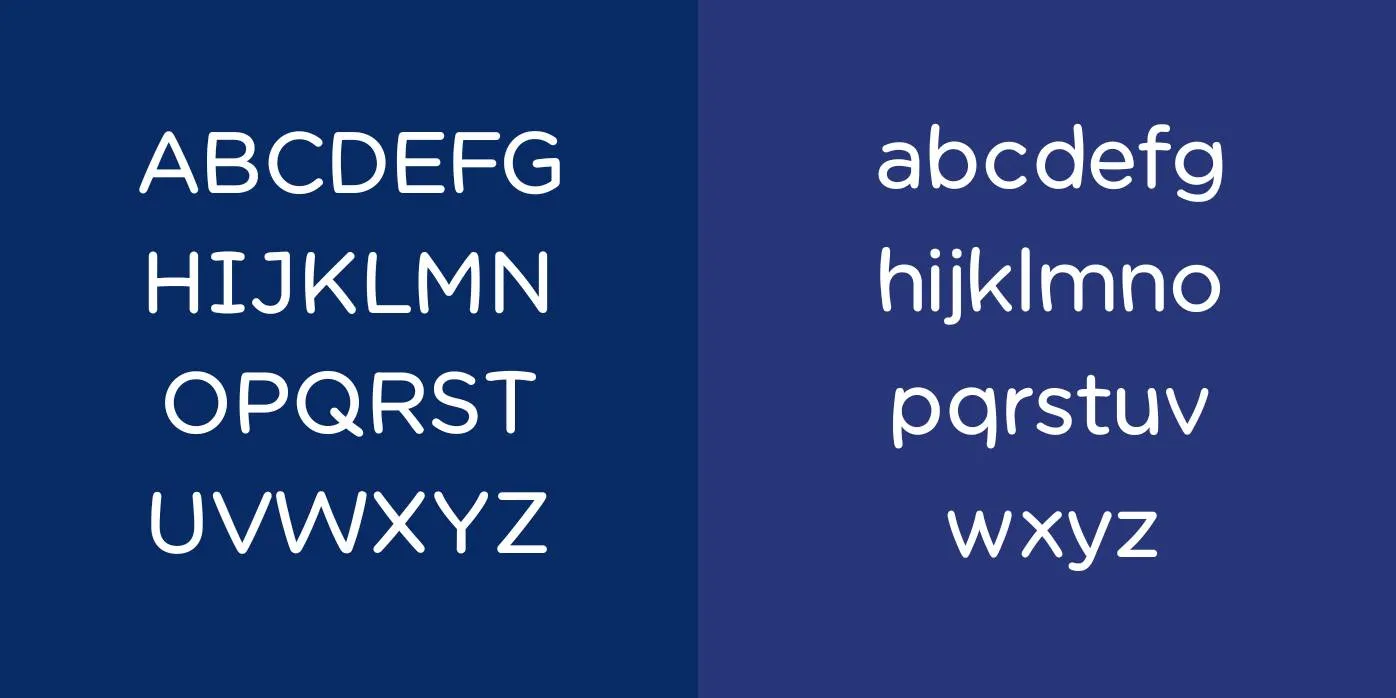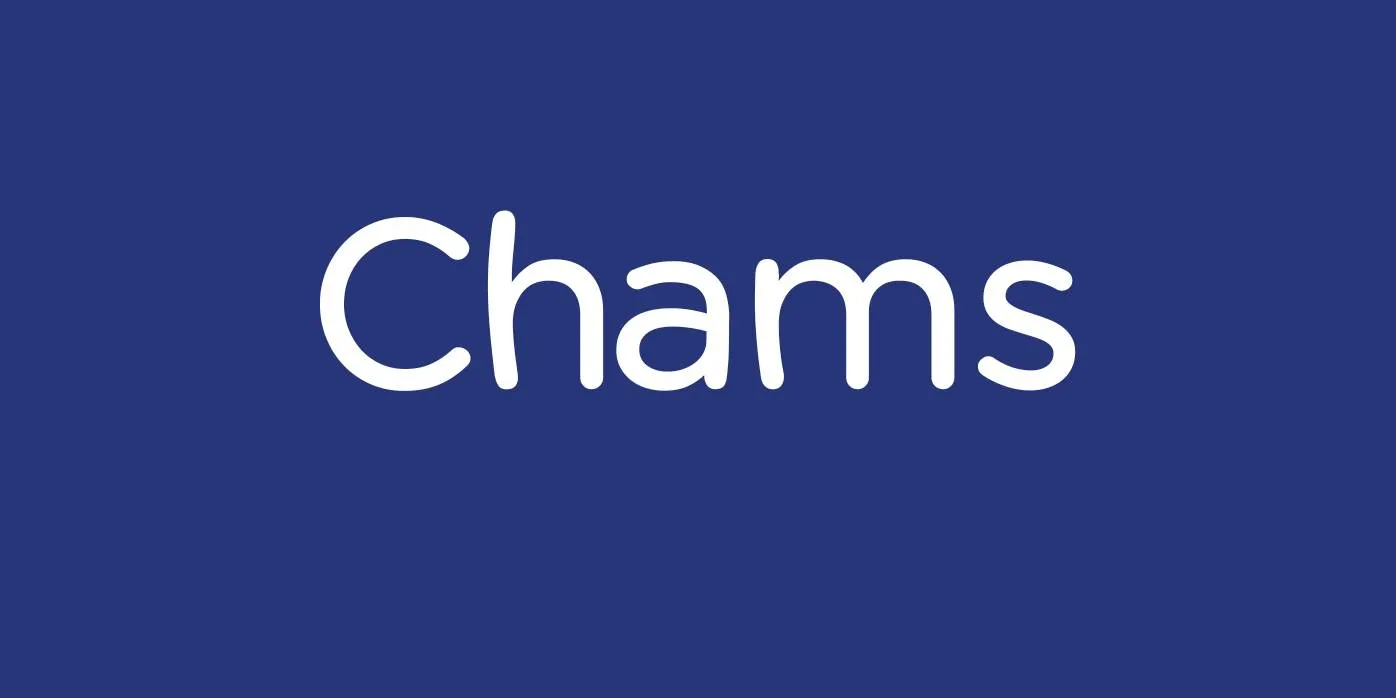
Chams Font
Tom Tor designed Chams Font. This is a fancy type of texture. This fancy texture has big, simple, and classic characters. It has 5 styles that are black, italic, bold, bold-italic, and regular.